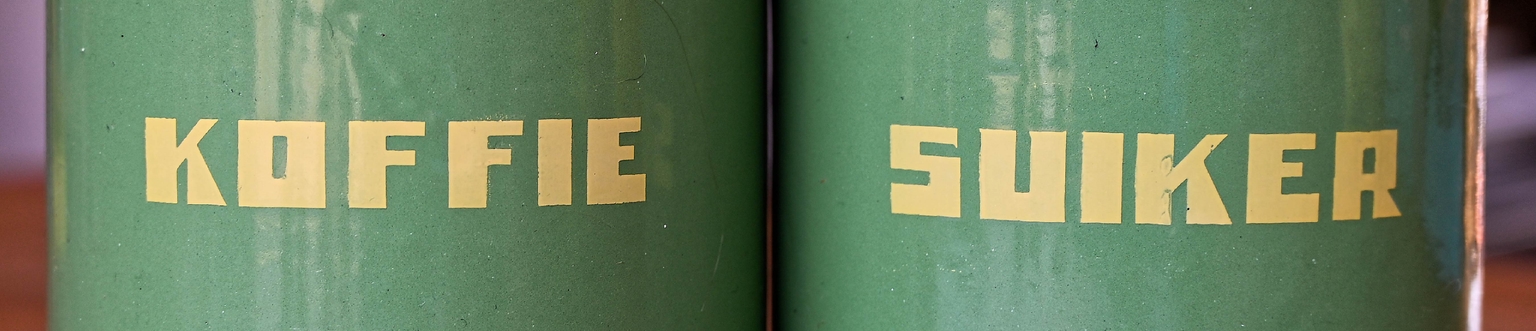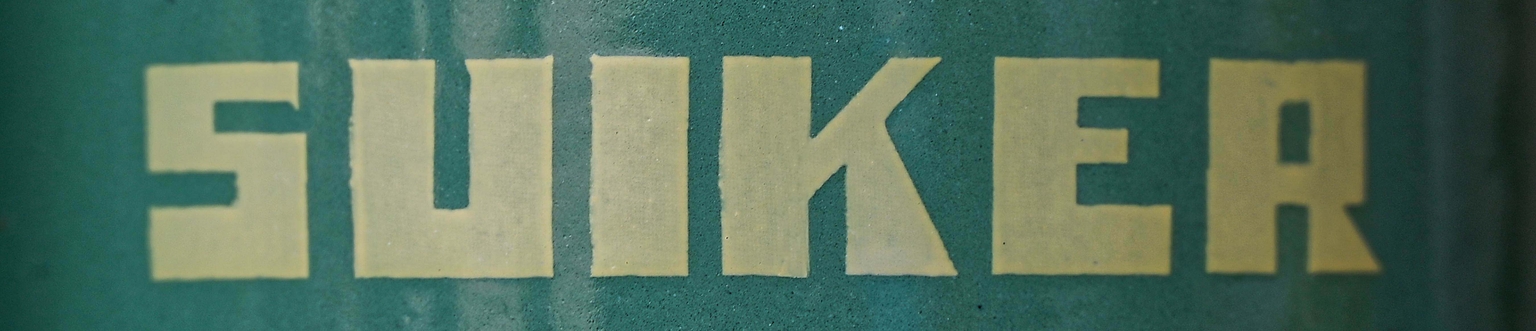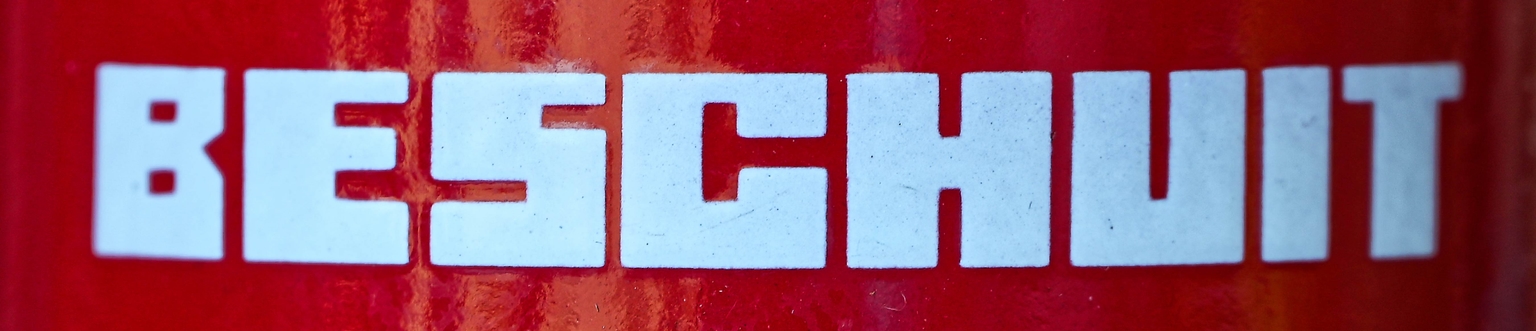
Keuken
Keuken is a striking display typeface by Paula Mastrangelo, inspired by the modular lettering found on iconic Dutch enamel kitchen canisters from the 1920s. Often labeled koffie, thee, or suiker, these jars once stood in countless Dutch households, their bold, geometric letters becoming a quiet staple of everyday life. Though the designer of the original type remains anonymous, their work left a lasting mark on 20th-century domestic design.
With Keuken, Mastrangelo pays tribute to this anonymous legacy, carefully translating the letterforms’ limited character set into a versatile digital typeface with wide language coverage. The result is both nostalgic and fresh—ideal for packaging, branding, posters, websites or any project seeking a solid yet playful aesthetic.
More than a revival, Keuken captures the spirit of early modern Dutch design: practical, unpretentious, and full of character. It celebrates a time when even the most utilitarian objects were crafted with style.